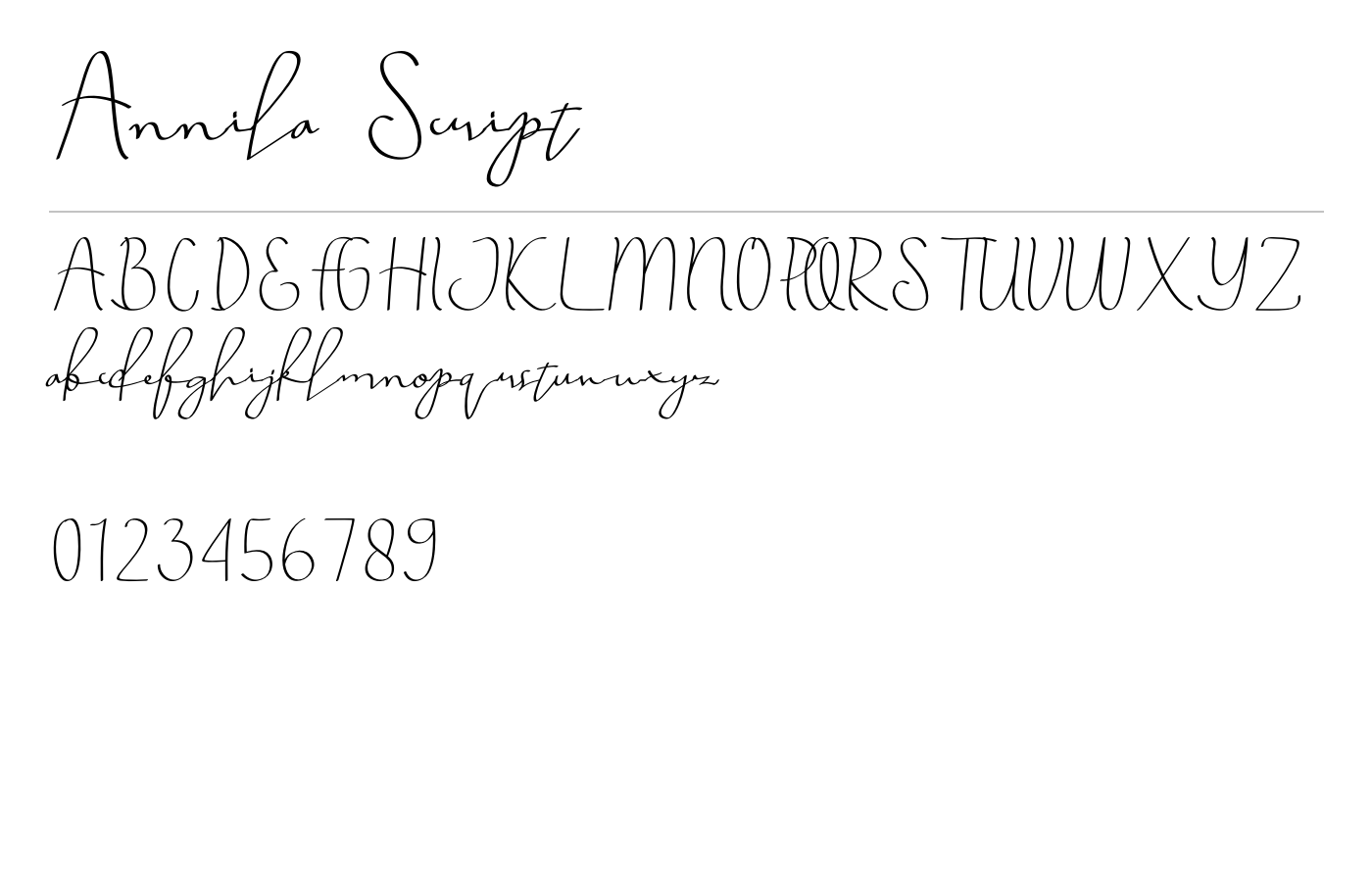
Annila Script is a delicate, handwritten script font that blends elegance with a casual charm. Its slender, slightly irregular strokes and airy letterforms create a refined yet approachable feel, making it perfect for invitations, branding, and projects that seek a personal, artistic touch. The font’s light weight and graceful flow make it ideal for adding a subtle, sophisticated flair without overwhelming the design.
Annila Script Font
About Annila Script Font
| Font family | Annila Script Font |
| Designer | Prio Nurokhim Aji |